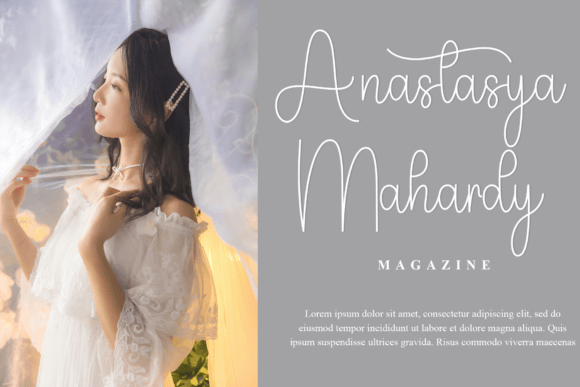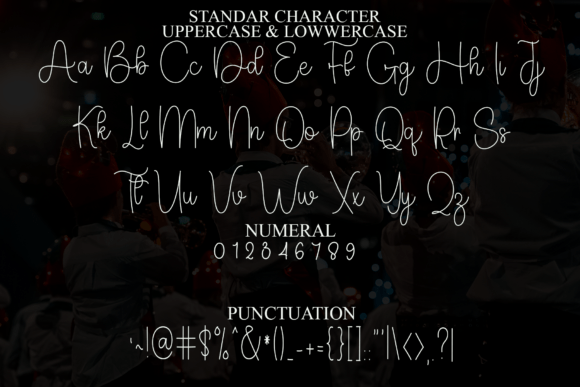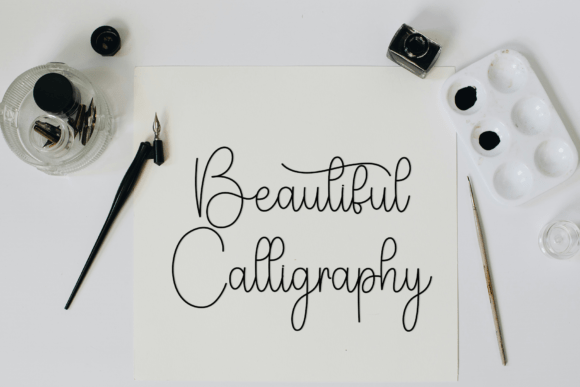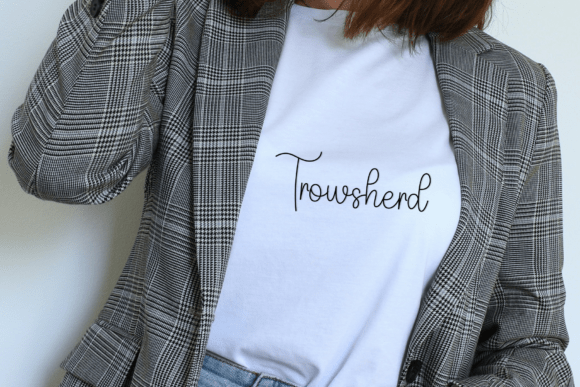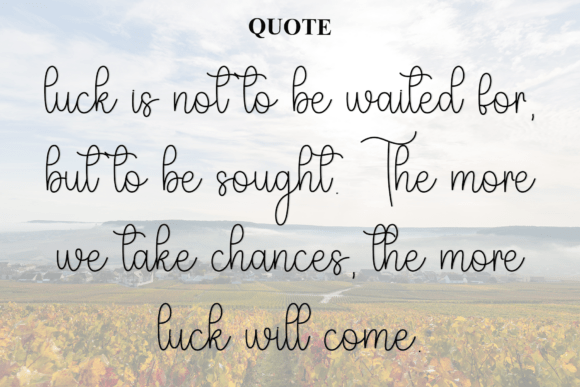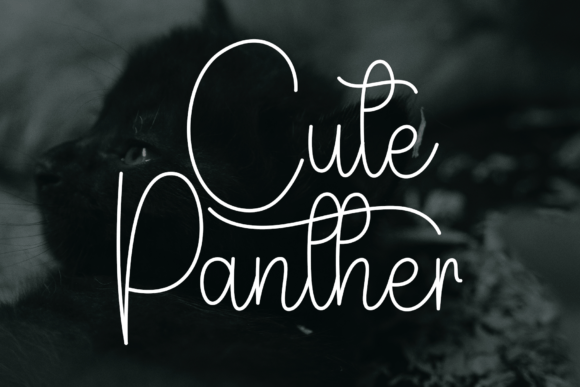
Unleash Your Creativity with the Charming Baby Panther Font
You know that moment when you’re brainstorming ideas for a new project, and you stumble upon a font that just clicks? For designers, finding the perfect font can be the difference between a good design and a great one. That’s where the Baby Panther Font comes in – a charming, casual font that exudes warmth and friendliness. Its round, playful strokes create a relaxed and approachable feel, perfect for personal projects, invitations, and social media graphics.
With its hand-drawn aesthetic and PUA Encoded glyphs, the Baby Panther Font is a valuable tool for designers who want to add a unique touch to their designs. Whether you’re working on a logo, a flyer, or a social media post, this font is sure to bring a smile to your face and make your designs stand out. So why settle for a generic font when you can unleash your creativity with the Baby Panther Font?
Baby Panther Font Key Features
- Font Style: Hand-drawn, cursive script font
- Character Set: Supports Latin-based languages, including English, Spanish, French, and more
- Unique Characteristics: Whimsical, childlike feel; perfect for branding, packaging, and children’s products
Designer Review: Baby Panther Font
Overall, I think the Baby Panther font has some unique qualities that can work well in certain design projects. ✨ The font’s playful, whimsical feel is perfect for children’s books, nursery decor, or other kid-friendly materials. It’s also quite legible, making it suitable for short paragraphs of text.
Here are some specific things that work well:
- Fun and imaginative design style
- Good legibility, especially for short text
- Can add a touch of personality to designs
- ⚠️ Not ideal for long blocks of text due to its playful, cursive design
- ⚠️ May not be suitable for formal or professional designs
- ⚠️ Some characters may not be as refined as others
Overall, I think the Baby Panther font is a great choice for designers looking to add some personality to their projects. Just be sure to use it in the right context and balance it with other design elements to avoid overwhelming the reader.
The Baby Panther font is ideal for:
- Children’s book illustrations and designs.
- Whimsical and playful branding.
- Handwritten or cursive-style text effects.
For the best results, use the Baby Panther font in conjunction with other playful and whimsical design elements, such as watercolor textures and hand-drawn illustrations.
The Baby Panther Font is a modern sans-serif font known for its clean and minimalist design. It’s often used for titles, headings, and body text in various digital platforms. Here are a few alternatives to consider: